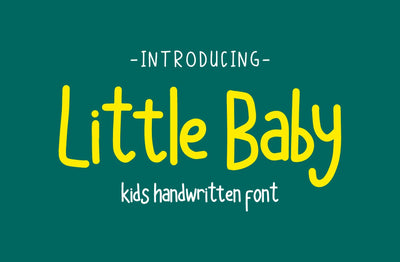
Little Baby - Kid's Handwritten Font
Little Baby is a children’s font with a cheerful and happy feel. This cute font will add a fantastic touch to your designs. Use it for any kids’ projects, such as, t-shirts, web designs, logos, and more!